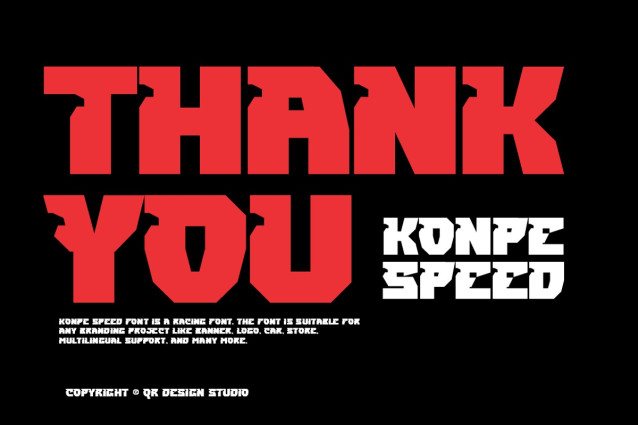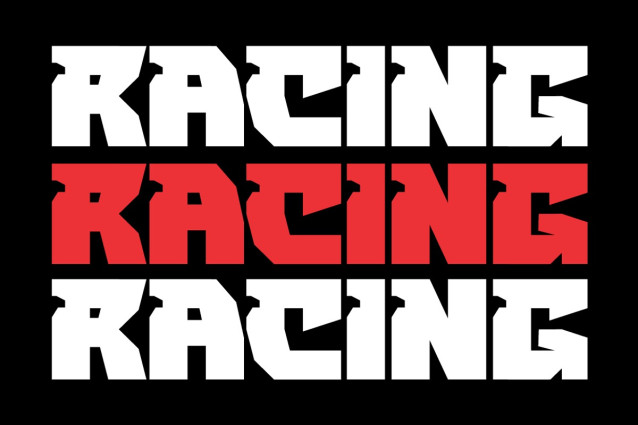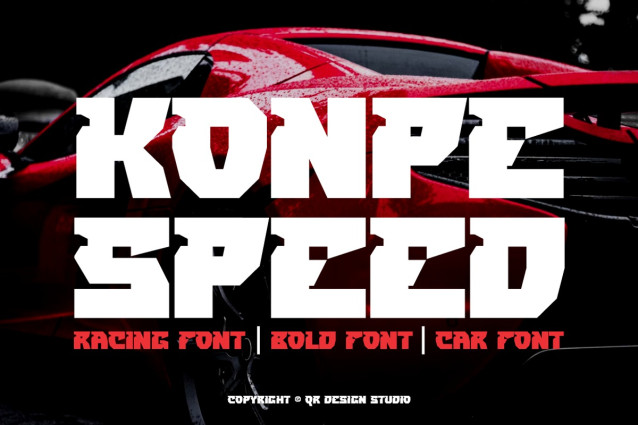
Konpe Speed Font
Konpe Speed Font is a bold and authentic display font. The font is suitable for any branding project like poster, logo, sport, and many more. Outstanding in a wide range of contexts.